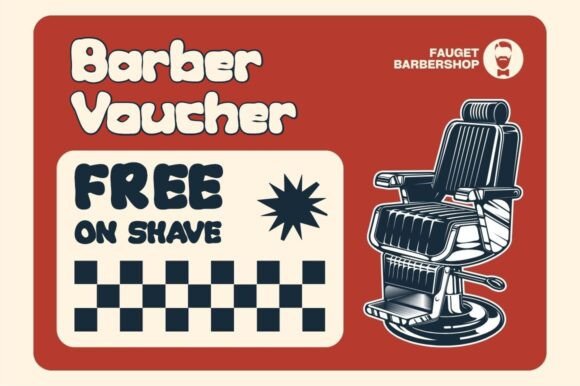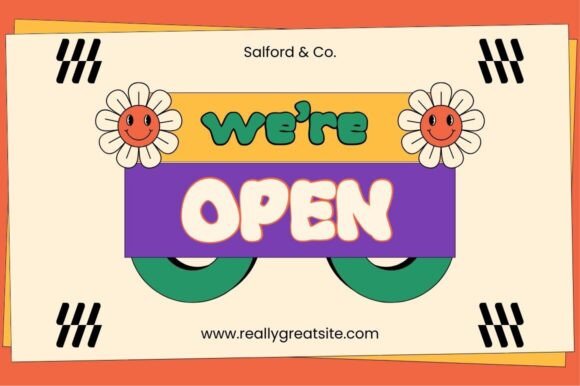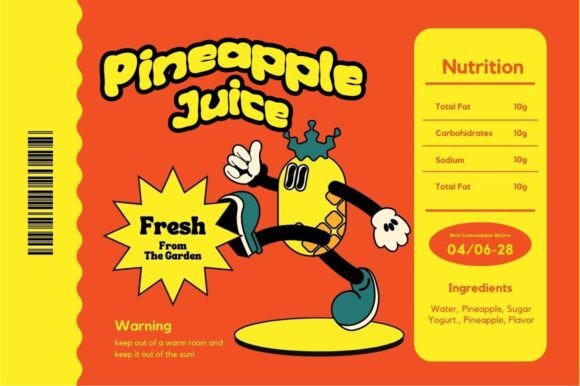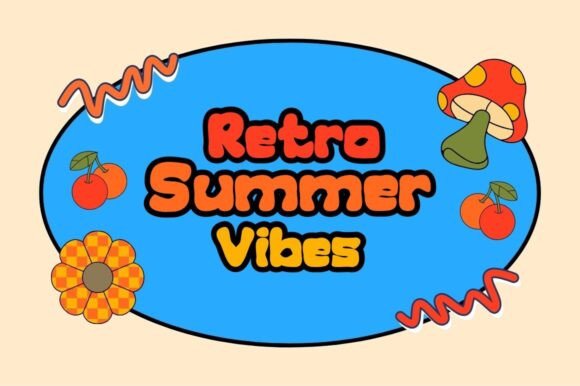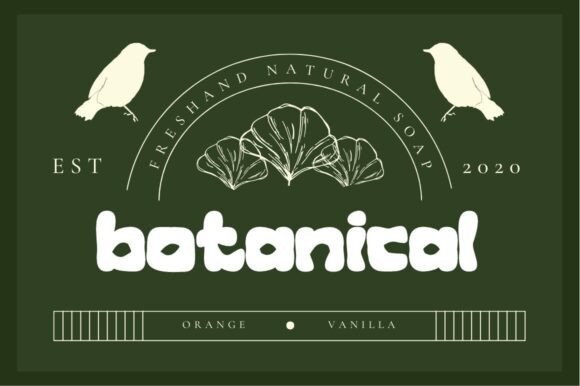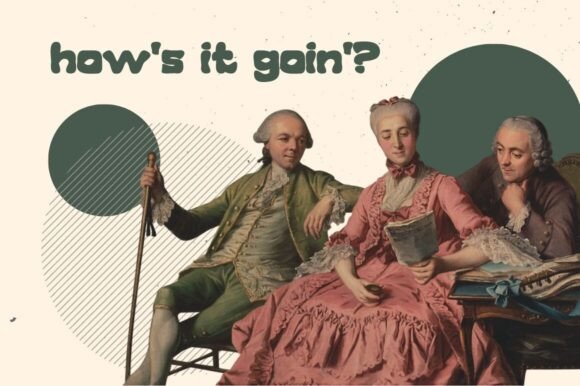
Introduction to Kuraci Retro Font
Introducing “Kuraci Retro” is a stylish typeface inspired by the vintage aesthetics of the 70s and 80s.
This font features bold, rounded letterforms with a subtle geometric twist, embodying the essence of retro design The unique curves and playful shapes give “Kuraci Retro” a distinct charm, making it perfect for posters, branding, and design projects that seek to capture the nostalgia of bygone eras.
Key Features of Kuraci Retro Font
Why Choose Kuraci Retro Font?